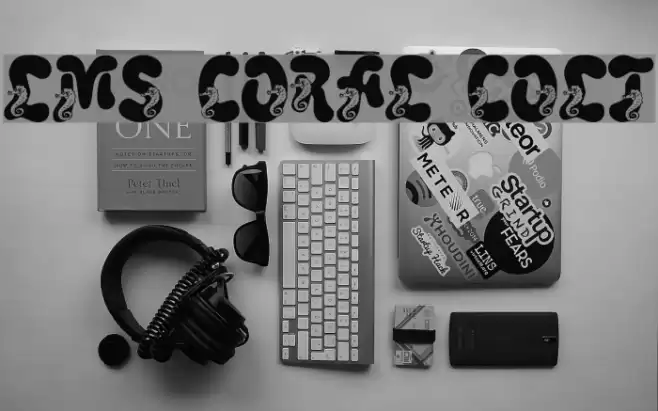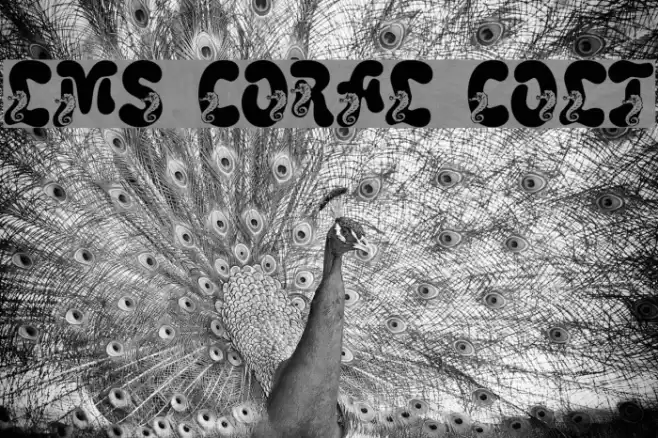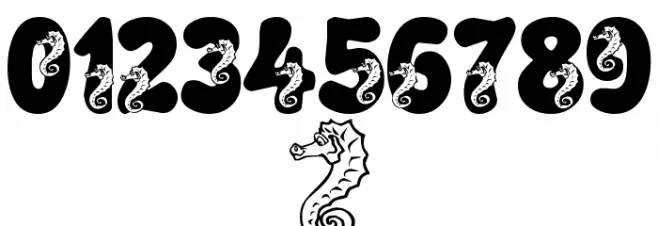
LMS Coral Colt Font
LMS Coral Colt Description
This font features a bold and playful design with a unique decorative element. Each character is adorned with intricate seahorse illustrations, adding a whimsical and nautical theme. The letters are thick and rounded, providing a strong visual impact. The combination of bold strokes and detailed embellishments makes it stand out, perfect for creative and themed projects. The font maintains consistency in style across uppercase, lowercase, and numeral characters, ensuring a cohesive look.
A bold, decorative font with seahorse embellishments, perfect for nautical themes from Uncategorized fonts.
- Proposed Projects: Ideal for children's books, beach-themed event posters, playful branding, and decorative signage.